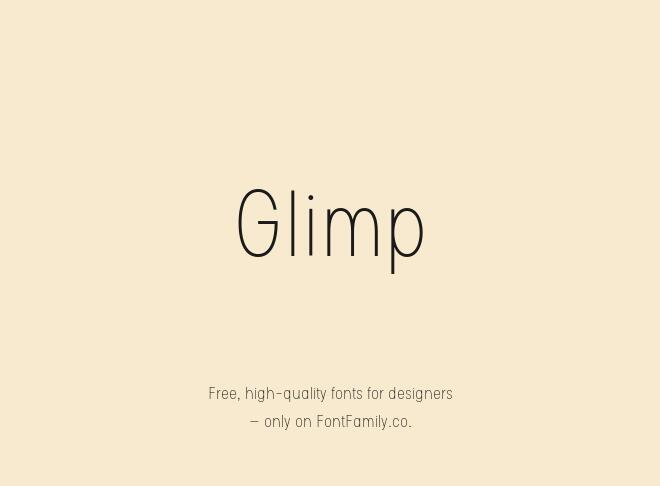
Glimp Font
Glimp Font is an elegant and modern display typeface from Creative Market. With its clean lines and sophisticated curves, it exudes a sense of luxury and sophistication. Perfect for branding, logo design, and high-end advertising campaigns, Glimp Font stands out from the crowd. Its unique design and well-balanced characters make it comparable to popular fonts like Gotham and Proxima Nova, with its own unique twist. The font’s versatility makes it a great choice for a wide array of design projects. Whether you're creating a minimalist website or crafting an ornate invitation, Glimp Font can add a touch of class and modernity to your design. Its wide range of characters and glyphs also ensures compatibility with multiple languages, making it a truly international typeface.